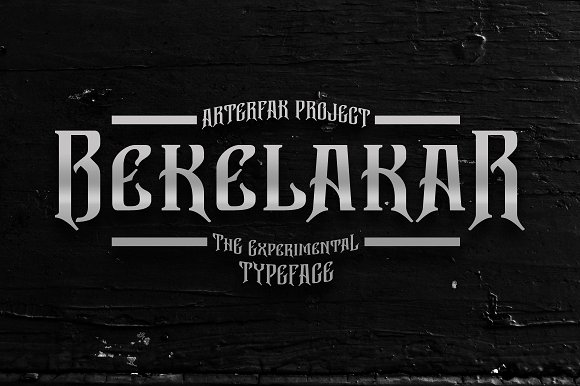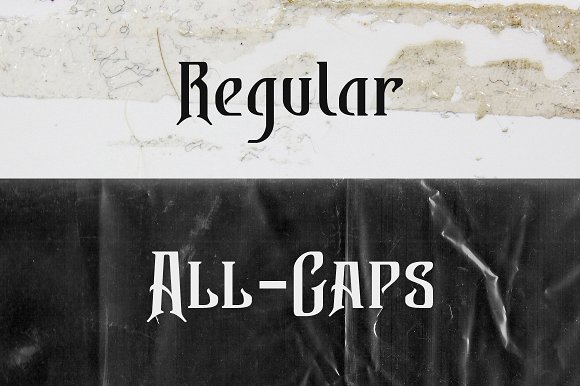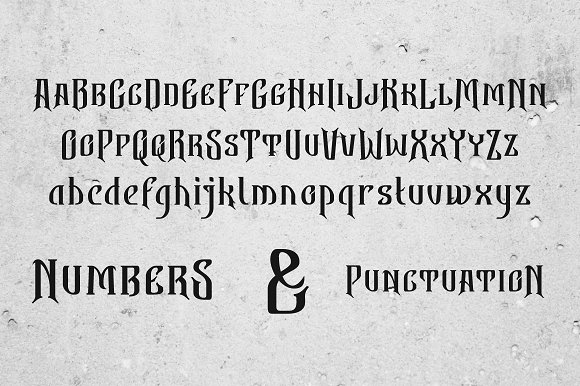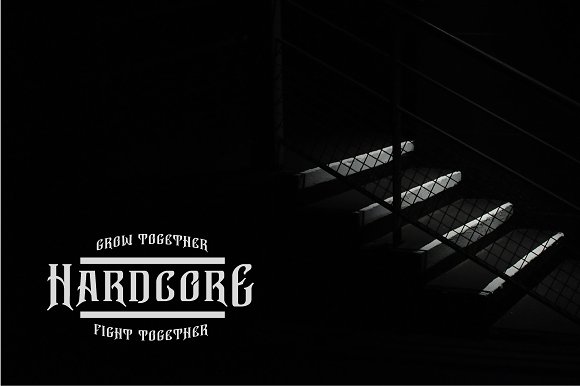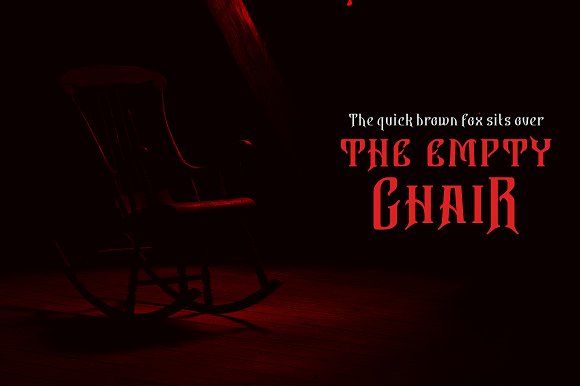
Bekelakar Font
About Bekelakar Font
Bekelakar is a blackletter font with experimental letters which form a combination from a hardcore, horror, metal & gothic style.
Bekelakar is available in Regular and All-caps.